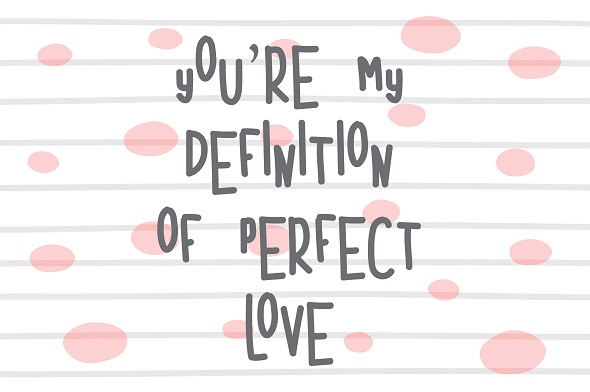
Morgenta Font
Introducing: Morgenta ! A sweet and simple hand-drawn font. Its bold and curvy characters can add a bunch of personality to any project.